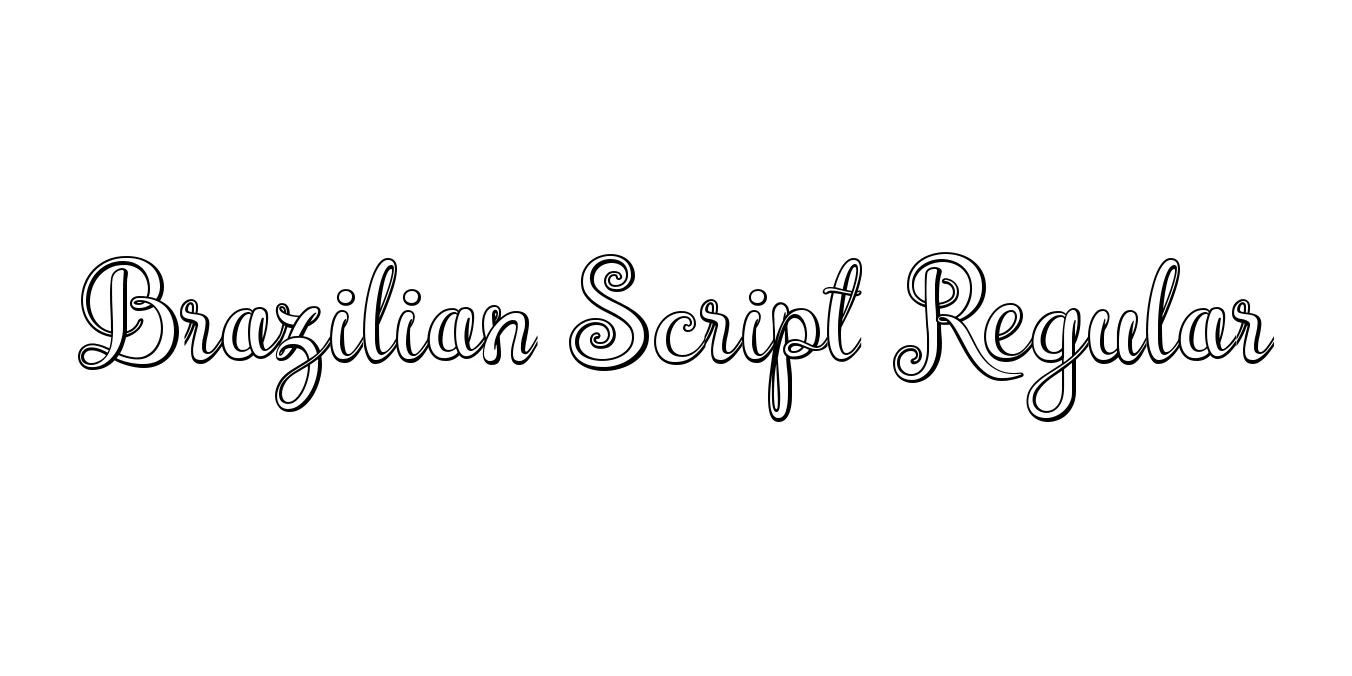
Brazilian Script Regular
Designed by Intellecta Design
Brazilian Script Regular is a masterful representation of classic 19th-century penmanship, heavily influenced by the Spencerian and Copperplate traditions. This typeface is characterized by its fluid, rhythmic strokes and intricate flourishes that evoke an era of hand-written elegance and formal sophistication. It captures the delicate balance between thick and thin strokes, which is a hallmark of traditional nib-based calligraphy, providing a rhythmic flow to the text.
The digital revival of Brazilian Script Regular ensures high-quality output for modern printing techniques, making it indispensable for high-end wedding stationery, formal invitations, and premium branding projects. Its timeless aesthetic allows it to bridge the gap between historical accuracy and contemporary design needs, ensuring that any project using it exudes an air of prestige and refined taste.
Brazilian Script Regular Best Uses
Perfect for creating elegant and formal wedding stationery and envelopes.
Ideal for high-end luxury brands, boutique identities, and premium packaging.
Adds a touch of authenticity, prestige, and tradition to formal documents.
Suited for sophisticated logos that require a refined handwritten touch.